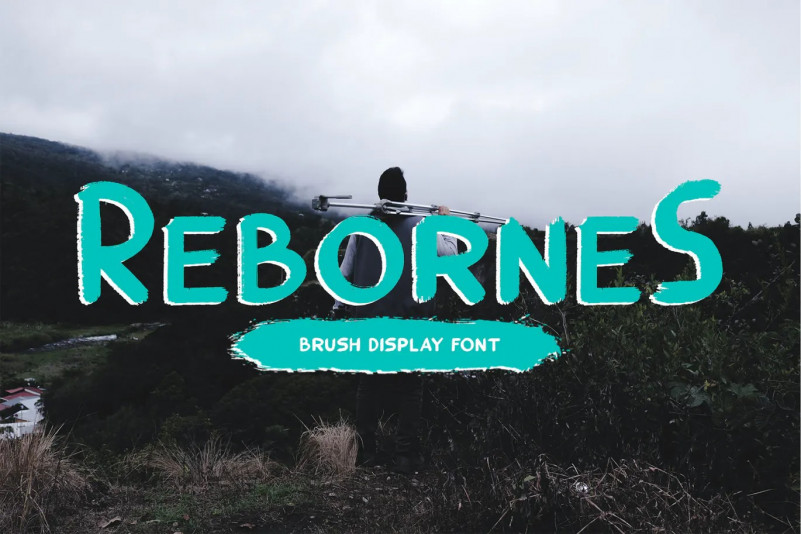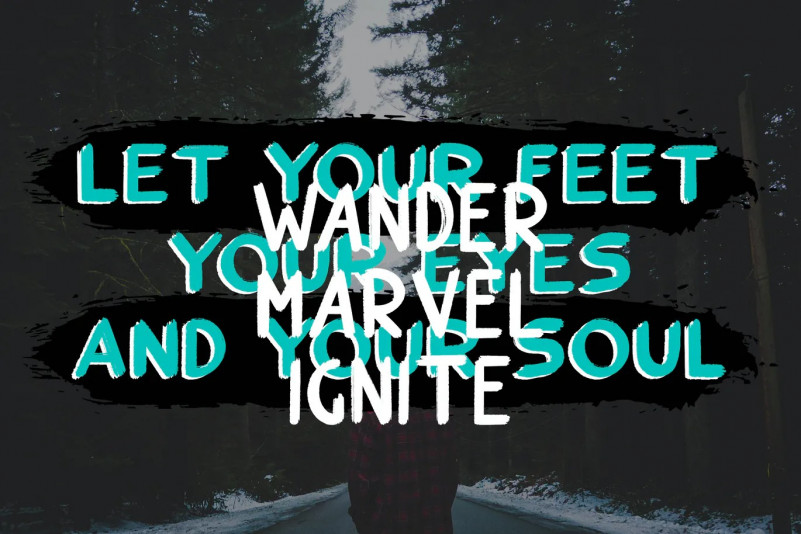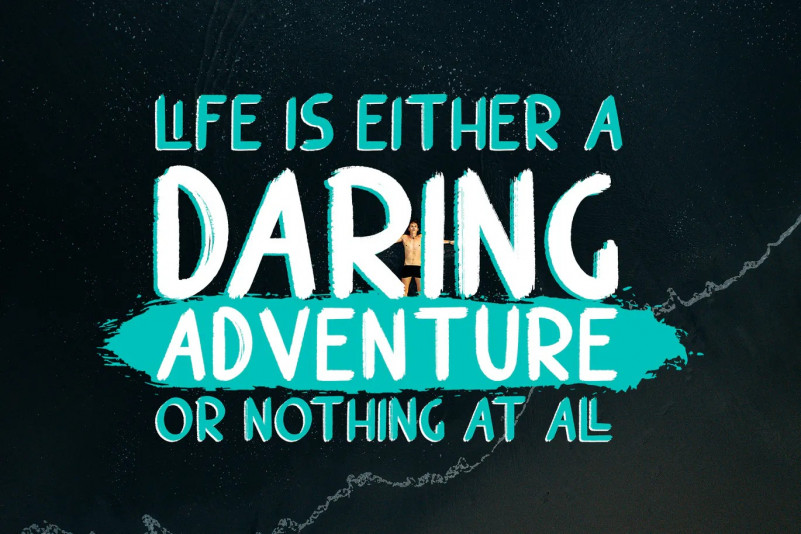
ReborneS Font
ReborneS is a stylish, handwritten brush script font perfect for creating beautiful logos, signage, social media, blog posts, styled quotes, packaging, and more! ReborneS includes uppercase multilingual letters, punctuation and numbers.